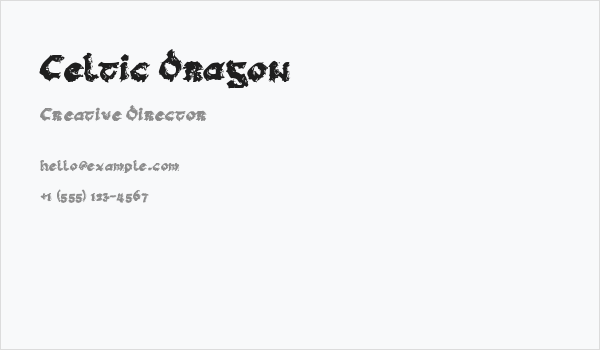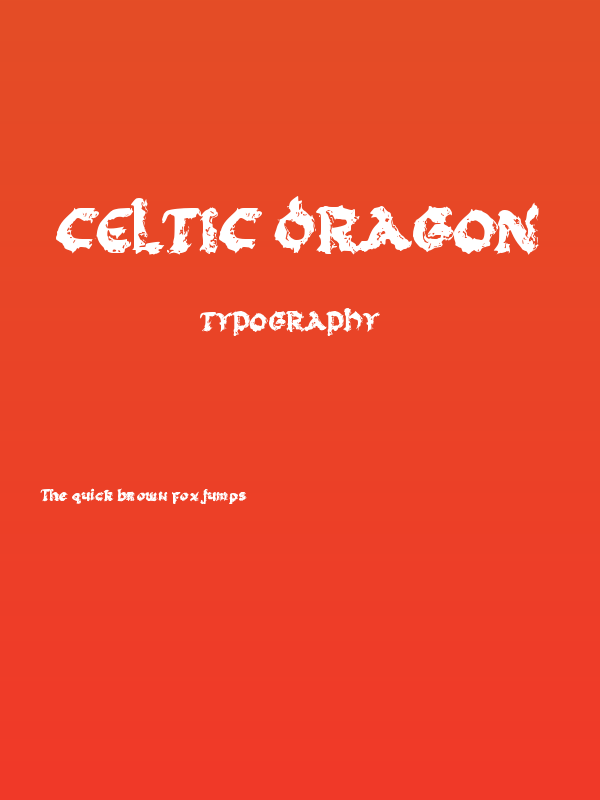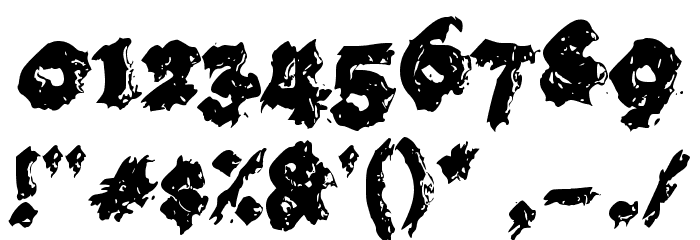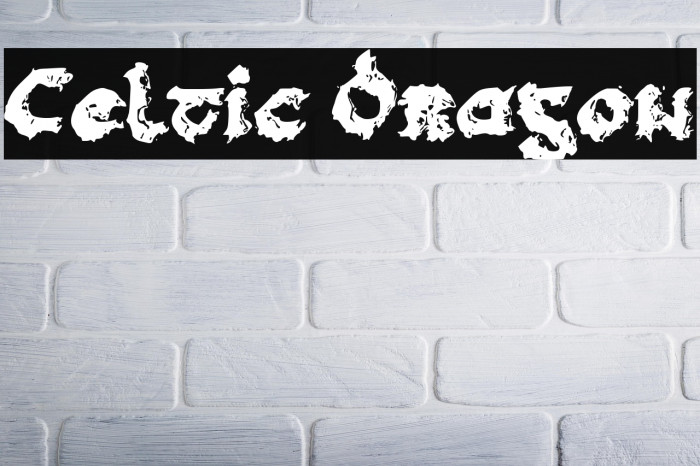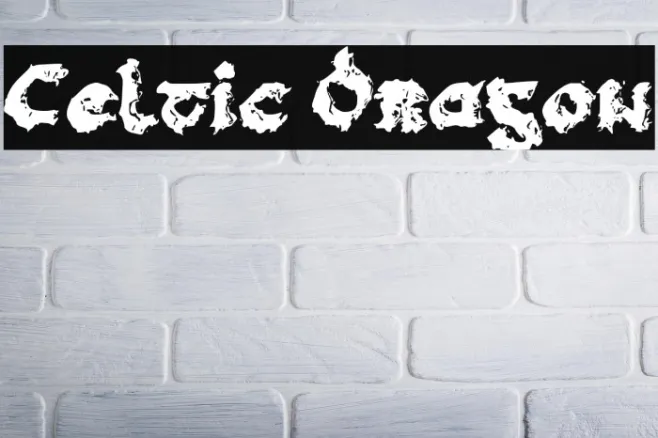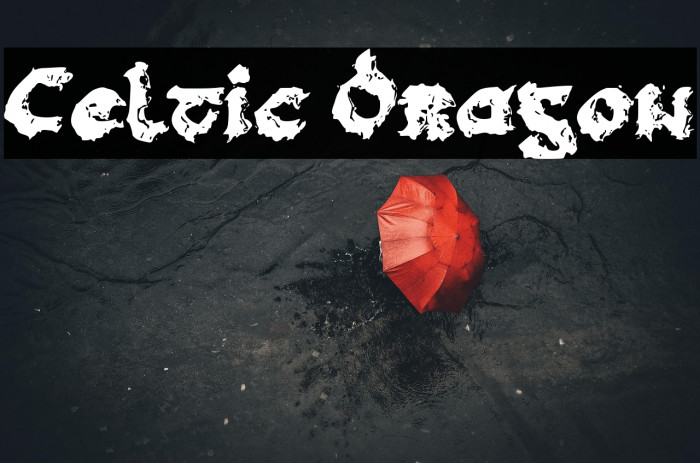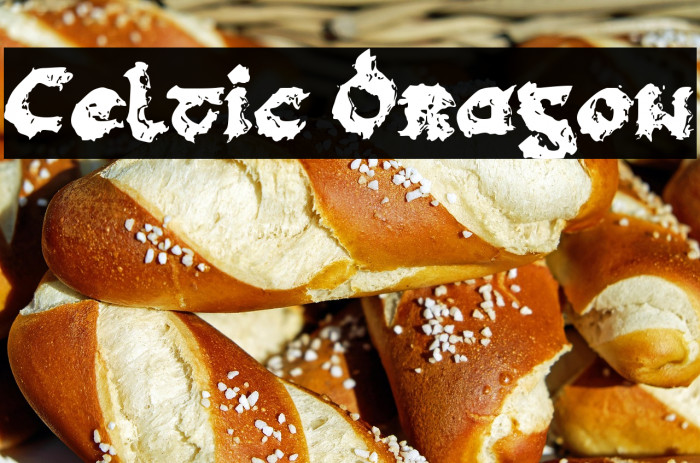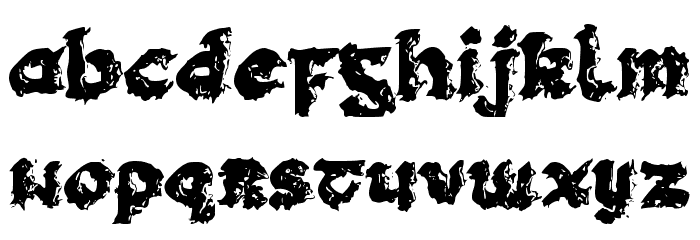
Celtic Dragon Font
Celtic Dragon Description
This font features a bold and intricate design, reminiscent of ancient Celtic artistry combined with a dragon-like ferocity. The characters are heavily stylized with sharp, jagged edges and a textured appearance that suggests movement and energy. Each letter is unique, with swirling patterns and pointed accents that create a sense of mystery and power. The font's dramatic flair makes it ideal for projects that require a touch of fantasy or medieval themes. Its complex design may not be suitable for body text but excels in decorative applications.
| Proposed Projects | Ideal for fantasy book covers, game titles, themed event posters, and decorative logos. |